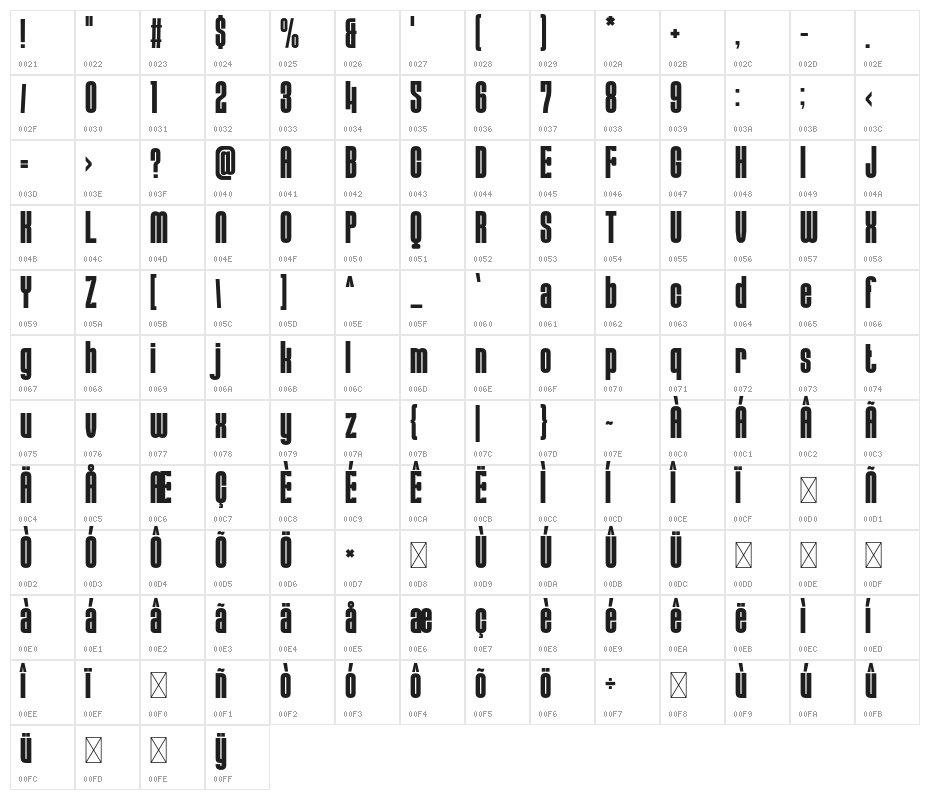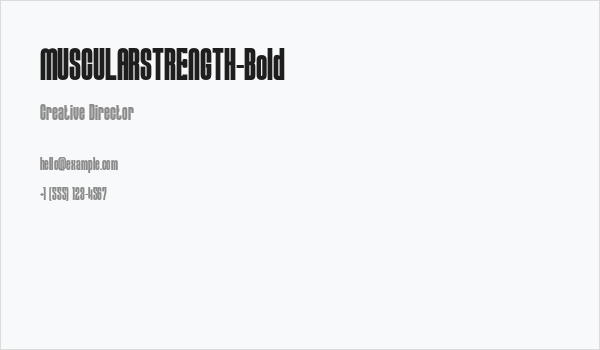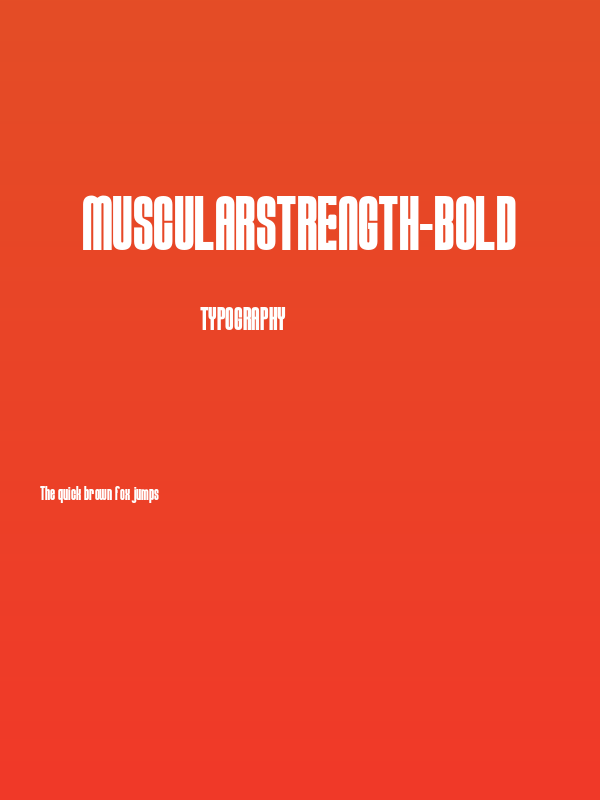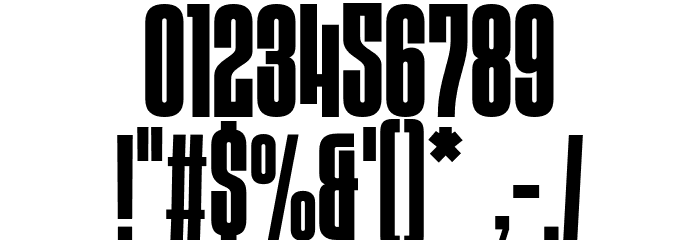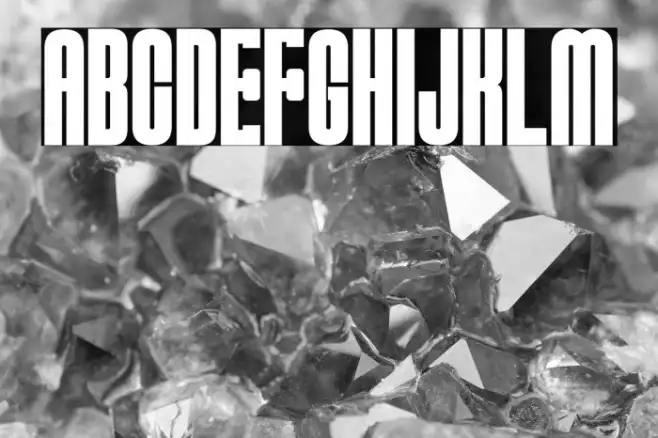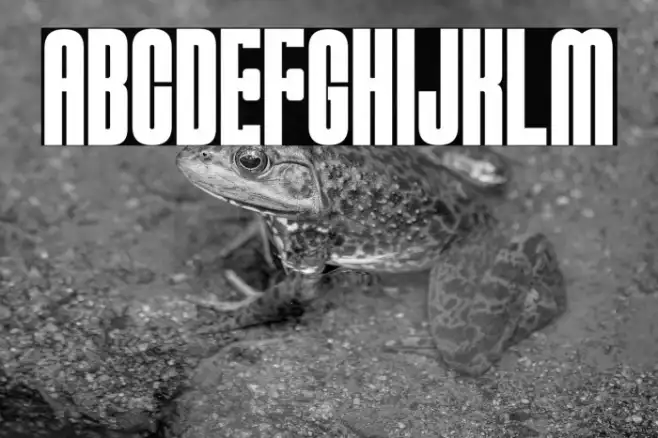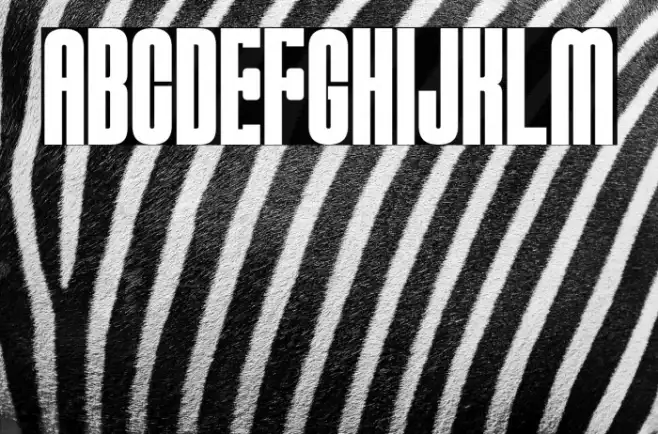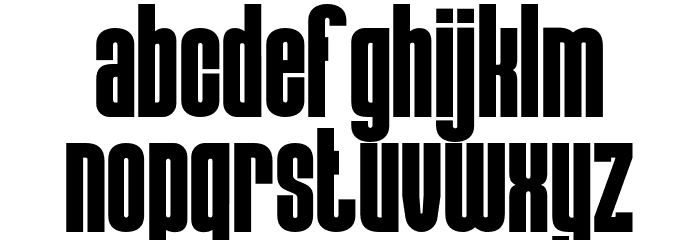
MUSCULARSTRENGTH-Bold Font
MUSCULARSTRENGTH-Bold Description
This font features a bold and impactful design, characterized by thick, uniform strokes and a strong presence. The characters are tall and condensed, giving them a powerful and assertive look. The uppercase and lowercase letters maintain a consistent width, enhancing the font's cohesive appearance. The numbers and special characters are designed to match the boldness of the alphabet, ensuring a uniform style across all elements. This font's design is ideal for making a statement, with its high contrast and striking visual appeal.
| Proposed Projects | Ideal for posters, headlines, branding, and any project requiring a strong visual impact. |